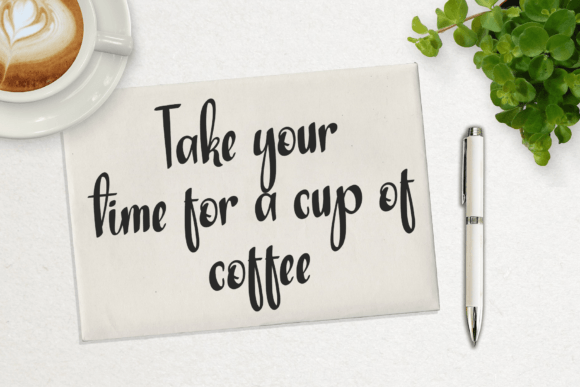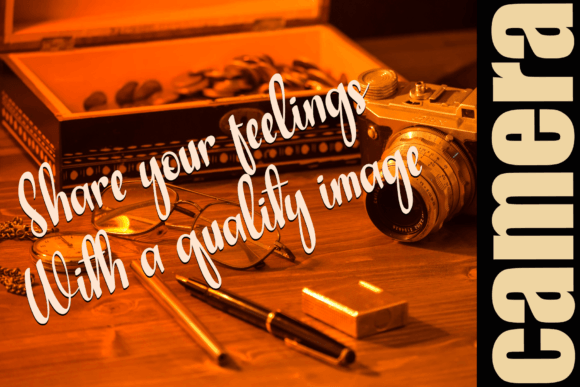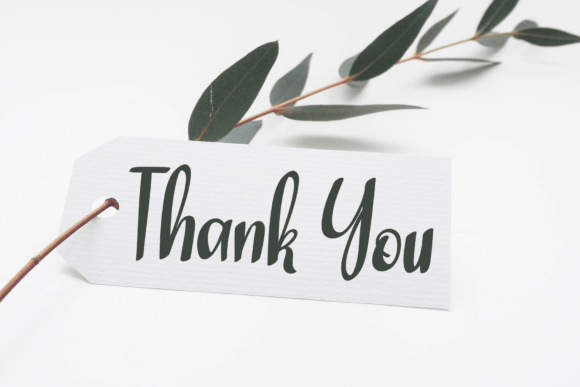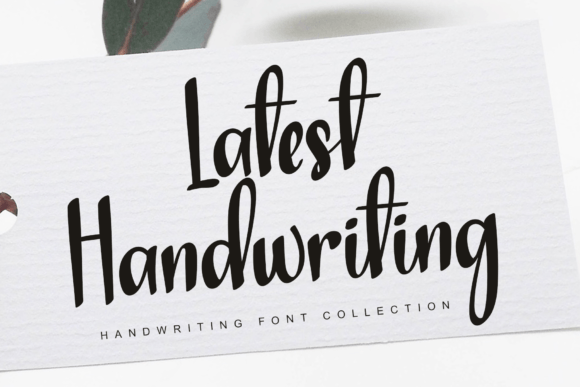
Introduction to Latest Handwriting Font
Latest Handwriting is a sweet, romantic, and beautiful script font.
It features beautiful curves in each letter It looks stunning on wedding invitations, thank you cards, quotes, greeting cards, logos, business cards, and every other design that needs a handwritten touch.